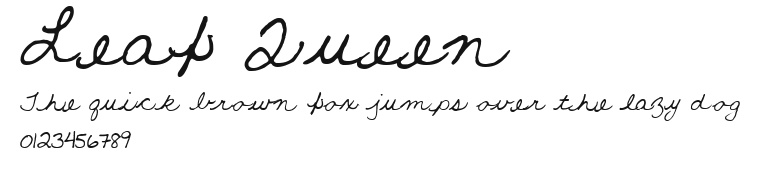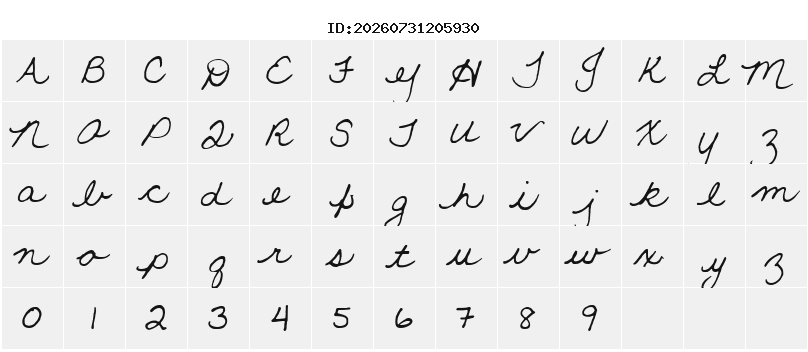
• Font Name: Leaf Queen
• Font Style: scripty
• Designer: Ellinor Rapp
• Description: This font is part of the Leaf Queen Family, made out of Patty's handwriting... This is scripty-version wich does not connect as well as scripty 2. You can use this script if you need alternative letters to start words with. I did it for free you can get one to! But now I charge $15 for a font - but you have a chance of winning it. Just visit Font Garden. If you find any use for this font I'd love to know :) Check out my hompage for more fonts!